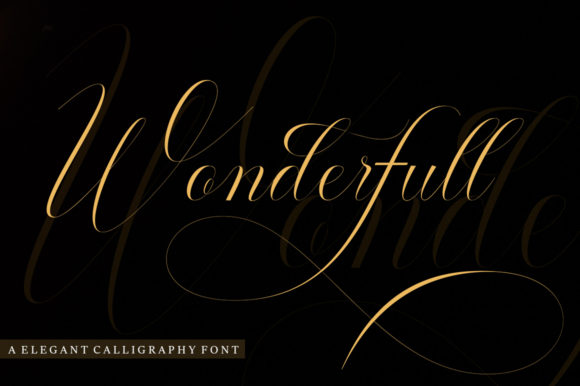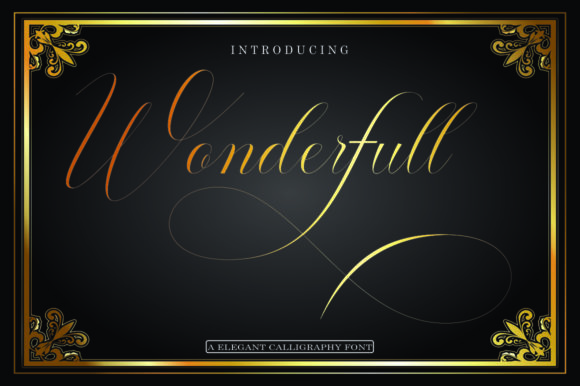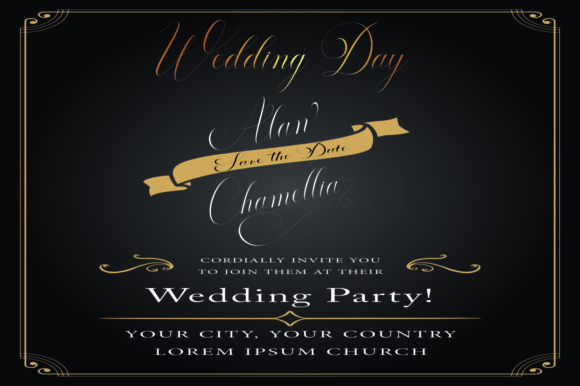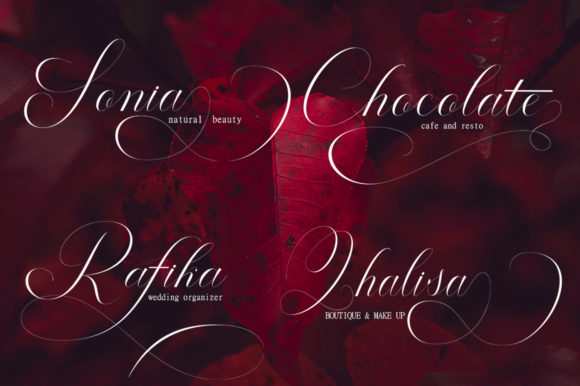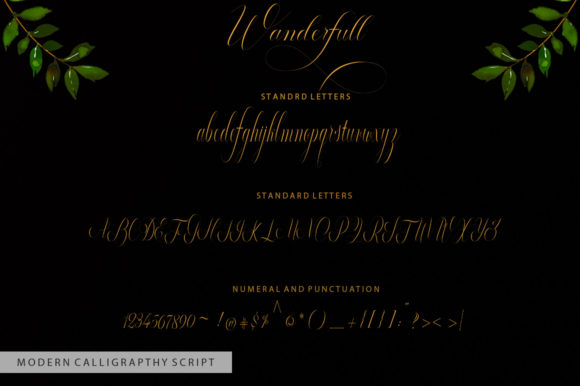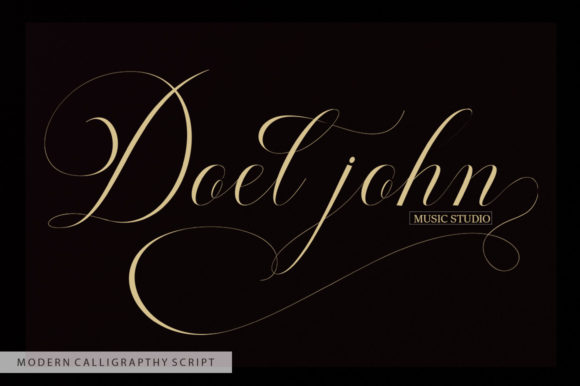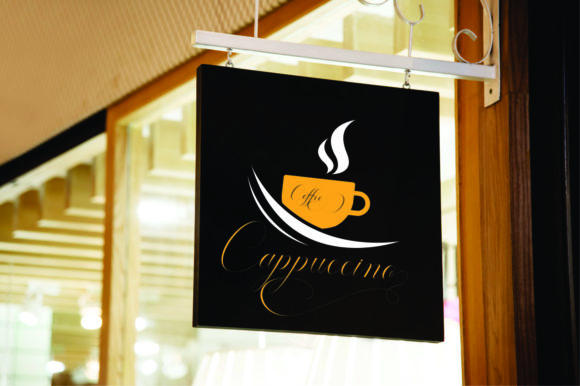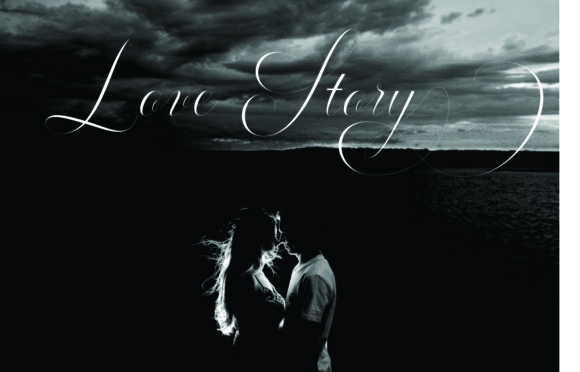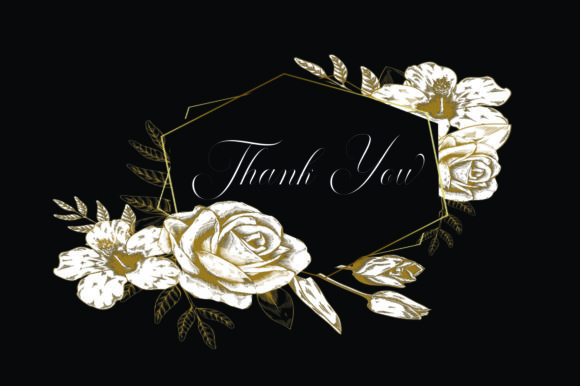
Wonderfull Font
About Wonderfull Font
The Wonderfull is a beautiful calligraphy typeface. It was designed to bring an elegant and luxurious feel to your designs.
The classic style is perfect to apply in various formal forms such as invitations, labels, menus, Logos, fashion, make up, stationery, letterpress, romantic novels, magazines, books, greeting / wedding cards, packaging, labels, and much more!